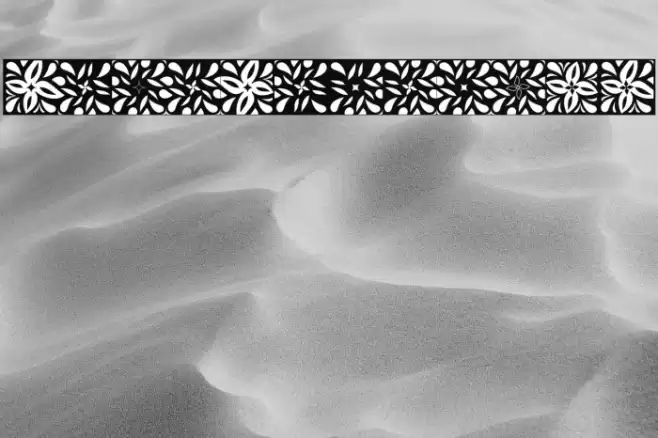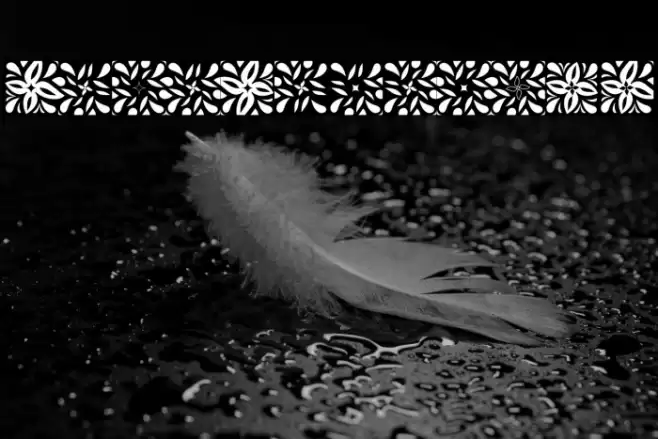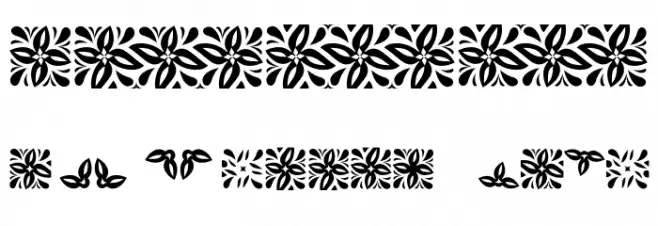
GlukFrames07 Font
GlukFrames07 Description
A decorative border font featuring repeating floral and leaf motifs in bold black shapes, forming continuous ornamental patterns suitable for frames and dividers.
Bold floral border patterns with repeating motifs from Uncategorized fonts.
- Proposed Projects: Invitations, certificates, decorative borders, scrapbooking, packaging, greeting cards.
- Overall Style: Decorative, Ornamental
- Use Case: Borders, Frames, Decorative accents